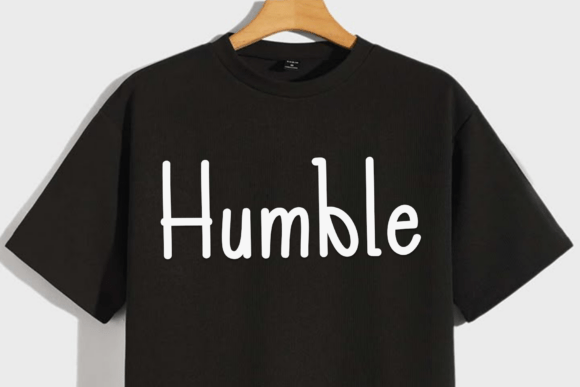
Beautiful Handwriting Font: Elevate Your Designs with a Touch of Elegance
In the world of typography, a beautiful handwriting font can make all the difference in creating visually stunning designs. One such font that has gained popularity among designers and artists is the Beautiful Handwriting font. This font is designed with a soft, unique touch that gives it a special character, making it perfect for a wide range of creative projects. In this article, we’ll explore the features and benefits of the Beautiful Handwriting font and how it can elevate your designs to the next level.
Distinctive Strokes and Characters
The Beautiful Handwriting font boasts distinctive strokes that give it a special character. Its unique touch makes it stand out from other fonts, adding a touch of elegance and sophistication to any design. The font comes with a wide range of characters, making it versatile and perfect for various design projects, crafts, and other creative works.
Seamless Compatibility with Various Applications
Ideal for Various Design Projects
The Beautiful Handwriting font is ideal for various design projects, including:
- Graphic design: Use it for creating stunning posters, flyers, brochures, and other marketing materials.
- Digital art: Add a touch of elegance to your digital art, illustrations, and paintings.
- Crafts: Use it for creating handmade cards, gift tags, and other craft projects.
- Web design: Enhance your website’s typography with this beautiful font, making it perfect for headings, titles, and quotes.
Benefits of Using Beautiful Handwriting Font
Using the Beautiful Handwriting font can bring numerous benefits to your designs, including:
- Unique touch: The font’s distinctive strokes give it a special character that sets it apart from other fonts.
- Versatility: With various characters, it’s perfect for a wide range of design projects, crafts, and other creative works.
- Elegance: The font adds a touch of elegance and sophistication to any design, making it perfect for high-end brands and luxury products.
- Readability: The font is easy to read, making it perfect for body text, headings, and titles.
Tips and Tricks for Using Beautiful Handwriting Font
Here are some tips and tricks for using the Beautiful Handwriting font effectively:
- Use it sparingly: Use the font sparingly to add emphasis to specific parts of your design, such as headings or titles.
- Mix and match: Experiment with different font sizes, colors, and styles to create a unique look.
- Pair it with other fonts: Pair the Beautiful Handwriting font with other fonts to create a stunning contrast.
- Use it for quotes and testimonials: Use the font for quotes and testimonials to add a touch of elegance and sophistication.
Examples and Inspiration
Here are some examples of how you can use the Beautiful Handwriting font in your designs:
- Wedding invitations: Use the font to create stunning wedding invitations, save-the-date cards, and other wedding-related materials.
- Branding and packaging: Use the font to create elegant branding and packaging materials, such as business cards, letterheads, and product labels.
- Digital marketing: Use the font to create eye-catching digital marketing materials, such as social media graphics, email newsletters, and blog posts.
In conclusion, the Beautiful Handwriting font is a stunning and versatile font that can elevate your designs to the next level. Its unique touch, distinctive strokes, and compatibility with various applications make it perfect for a wide range of design projects, crafts, and other creative works. By following the tips and tricks outlined in this article, you can use the Beautiful Handwriting font to create stunning designs that will leave a lasting impression on your audience.